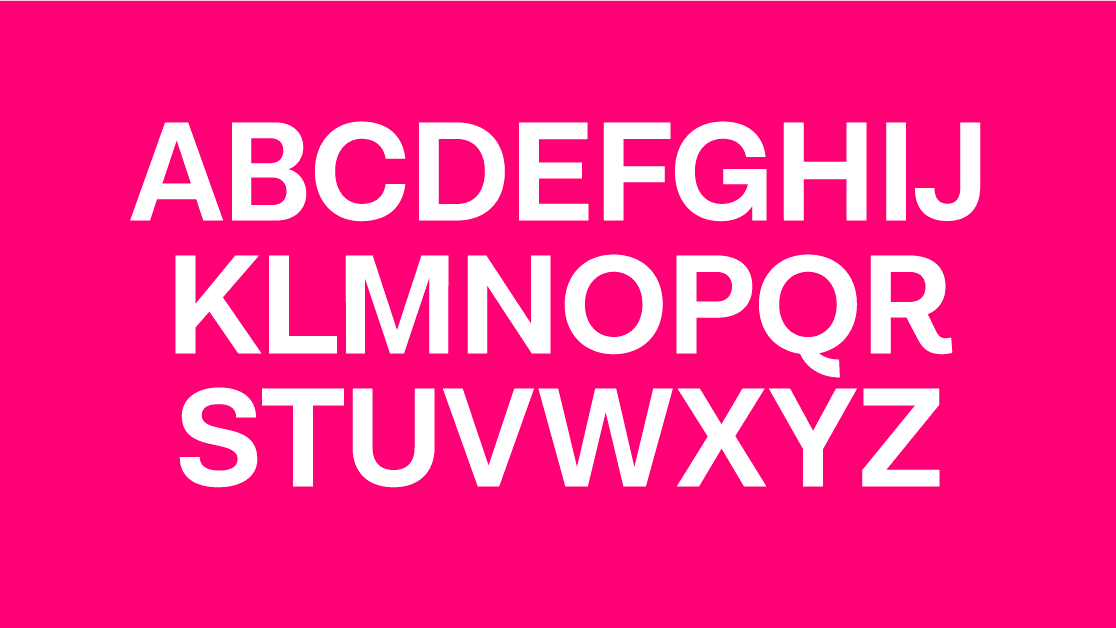
Choosing the Right Logo Fonts for Your Brand
Fonts are an indispensable part of any brand manual. In fact, they are one of the first things people see and set the tone for the entire brand.
At first glance, one might realize that all fonts are created equal. However, this could not be further from the truth. Fonts play an integral role in branding and must be chosen carefully to create a cohesive look and feel across all marketing materials.
So, how do you select the suitable typeface(s) for your company logo? Check out these tips we’ve outlined below
Consider Its Legibility
A new logo is one of the first concerns a potential customer notices about your business, so choosing a font that reflects your brand identity is essential.
When selecting a font for your logo, legibility should be your top priority. The last thing you want is customers to struggle to read your brand name.
In addition to legibility, you'll also want to consider color combinations, capitalization, alignment, space, and size.
Match Your Brand’s Identity
Different fonts can convey different personalities, mainly when you include them in your text logo design. For example, serif fonts are often seen as traditional and professional, while sans-serif fonts are seen as more modern and casual. Script fonts can be seen as elegant or playful, depending on the specific font.
Among the most famous examples of serif fonts are Times New Roman, Georgia, and Garamond. These fonts are often used in print media such as newspapers and books, as they are easily read at small sizes.
San serif fonts, such as Arial and Helvetica, are also widely used, particularly on the web. These fonts have a clean, modern look that is well suited to digital media.
Script fonts, such as Brush Script and Edwardian Script, are less commonly used but can add a touch of elegance to a logo design. When used sparingly, they can be compelling for creating a unique and upscale look.
When choosing a font for a project, it is vital to consider the personality you want to convey. A serif font may be appropriate for a formal document, while a script font may be more suitable for a fun invitation.
By understanding different fonts' personalities, you can ensure that your project conveys your intended message.
Know How It Matches with Other Fonts
One of the most important choices a designer can make when creating a new piece is deciding which fonts to use. With many choices available, narrowing down the field can be overwhelming. However, keeping a few simple principles in mind makes it possible to create a harmonious and effective font pairing.
One popular approach is to pair a sans serif font with a serif font. The contrast between the two can help to add interest and visual variation.
Another option is to use a minimal sans-serif font as the base layer, adding a more decorative font for headlines or other vital elements. For a luxurious look, try using thin, stylized serif fonts. Conversely, Opt for thick and rounded sans serif fonts for a more down-to-earth feel.
By carefully considering the overall tone and message of the piece, it is possible to create a initial logo design by pairing fonts that is both aesthetically pleasing and functionally effective.
Conclusion
Logo fonts should be easy to read and understand at a glance. They must also be versatile enough for different formats, such as digital or print media.